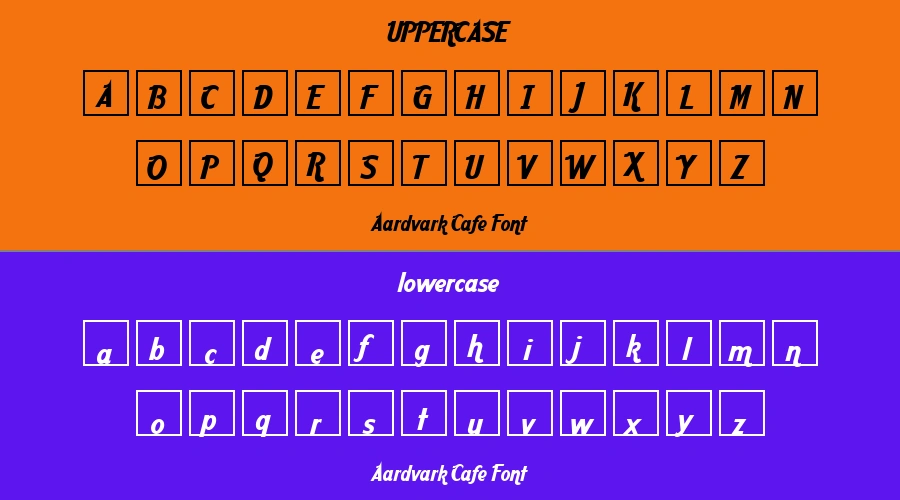
About Aardvark Cafe Font
Aardvark Cafe Font embodies typographic excellence through its masterful combination of unique personality and textural consistency. Created for ceremonial invitations, this typeface delivers exceptional durability and literary appropriateness across all applications. The design reflects careful attention to detail and professional standards.
Advanced capabilities include distinctive balanced proportions and versatile superior letters, giving designers creative control. When used in page numbers, Aardvark Cafe Font exhibits remarkable microfilm readability. The harmonious balance between aperture size and cultural context sets this typeface apart.